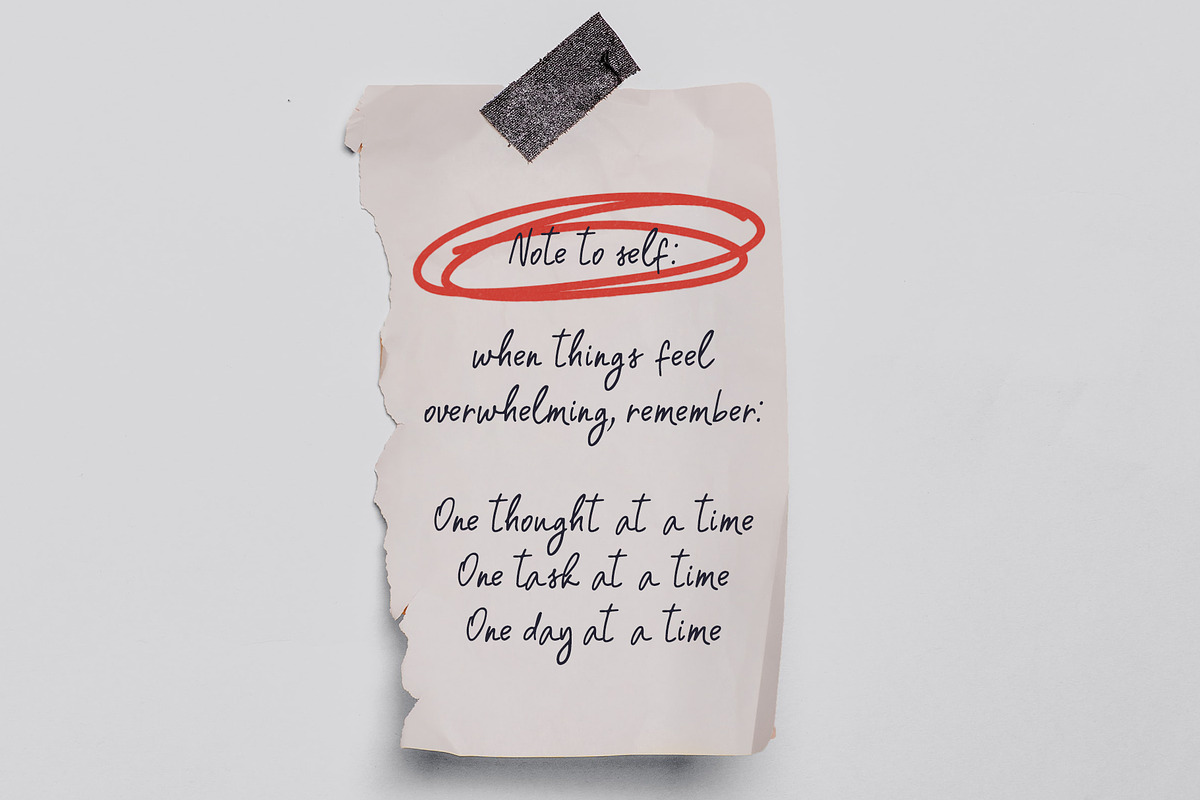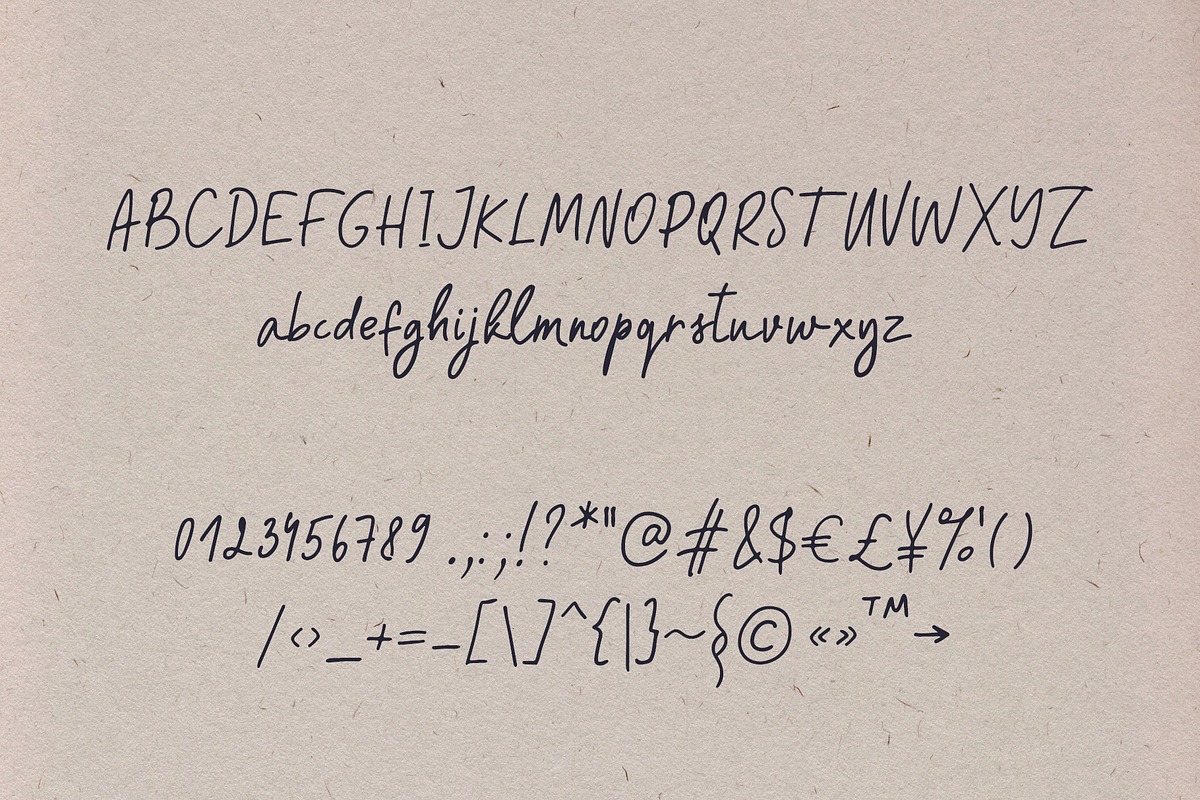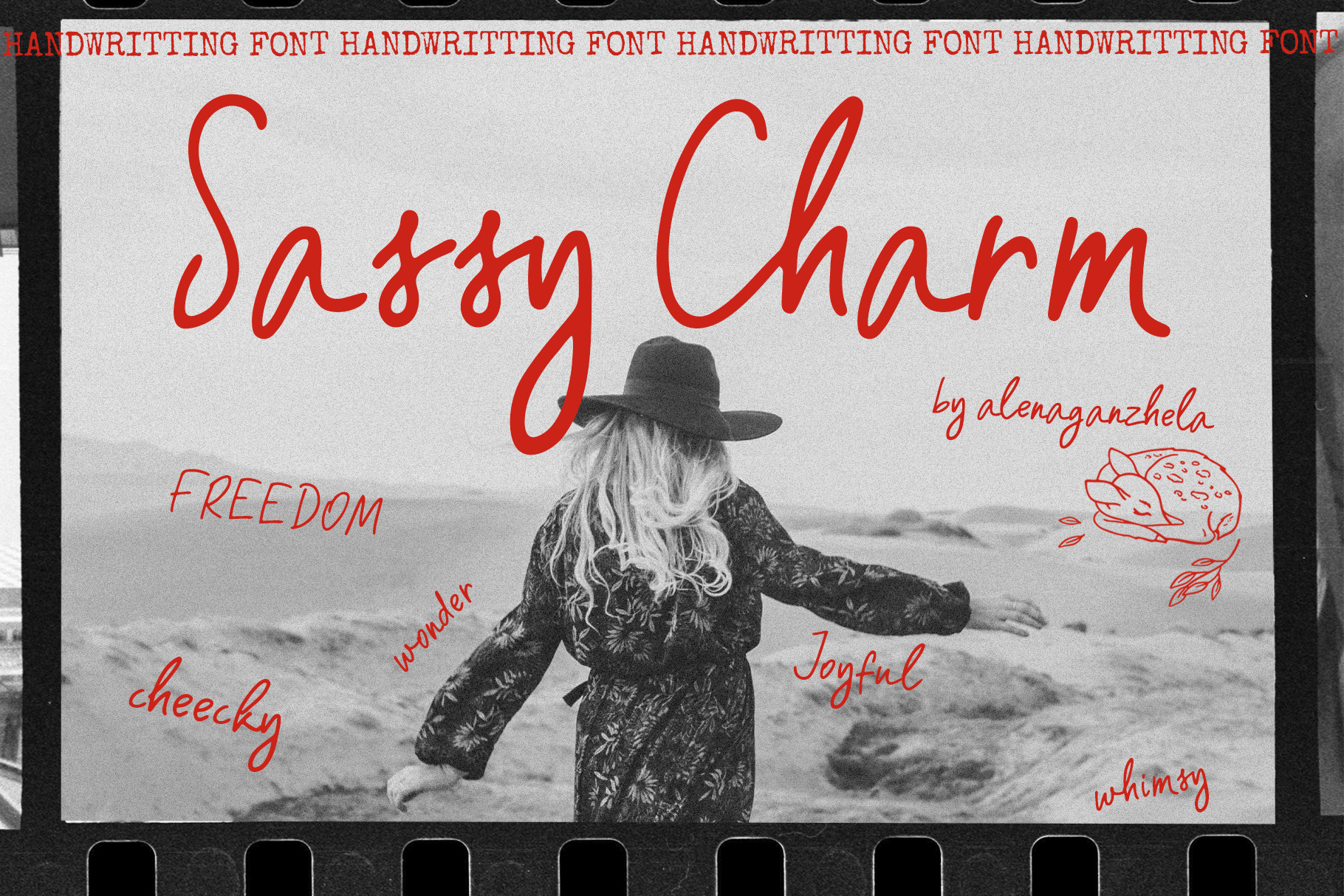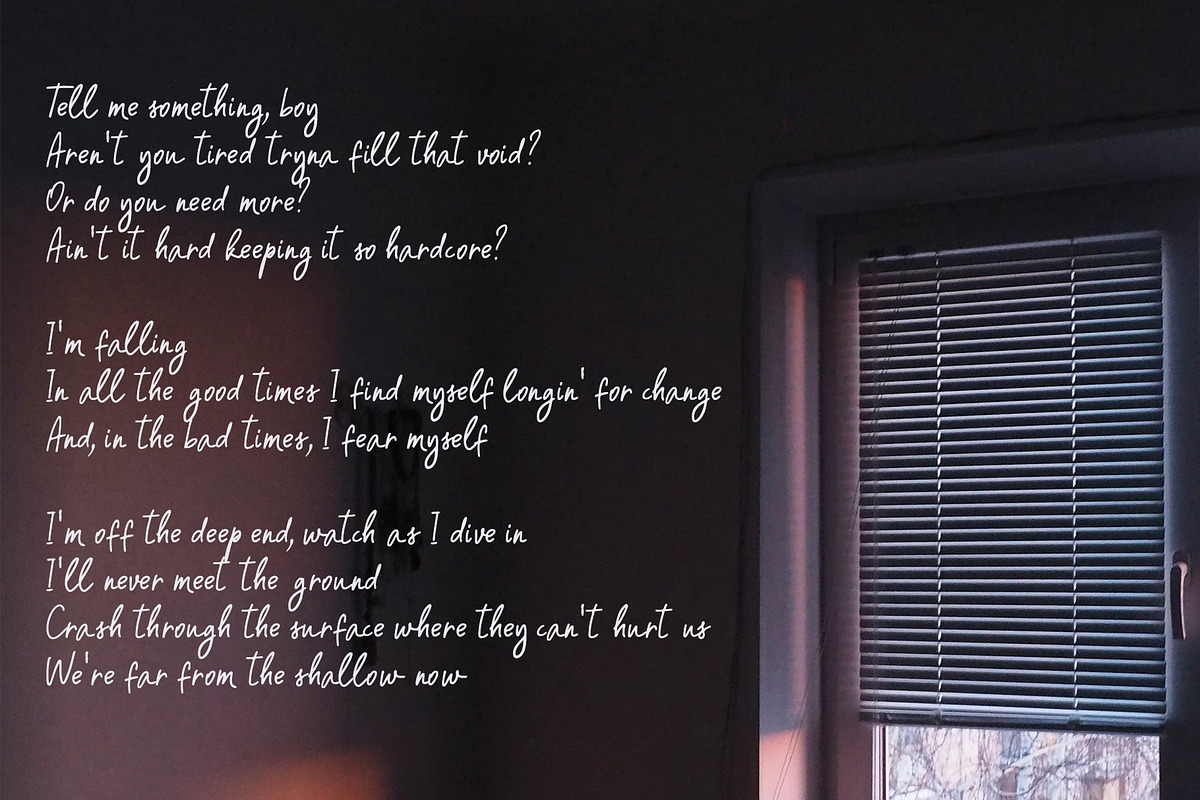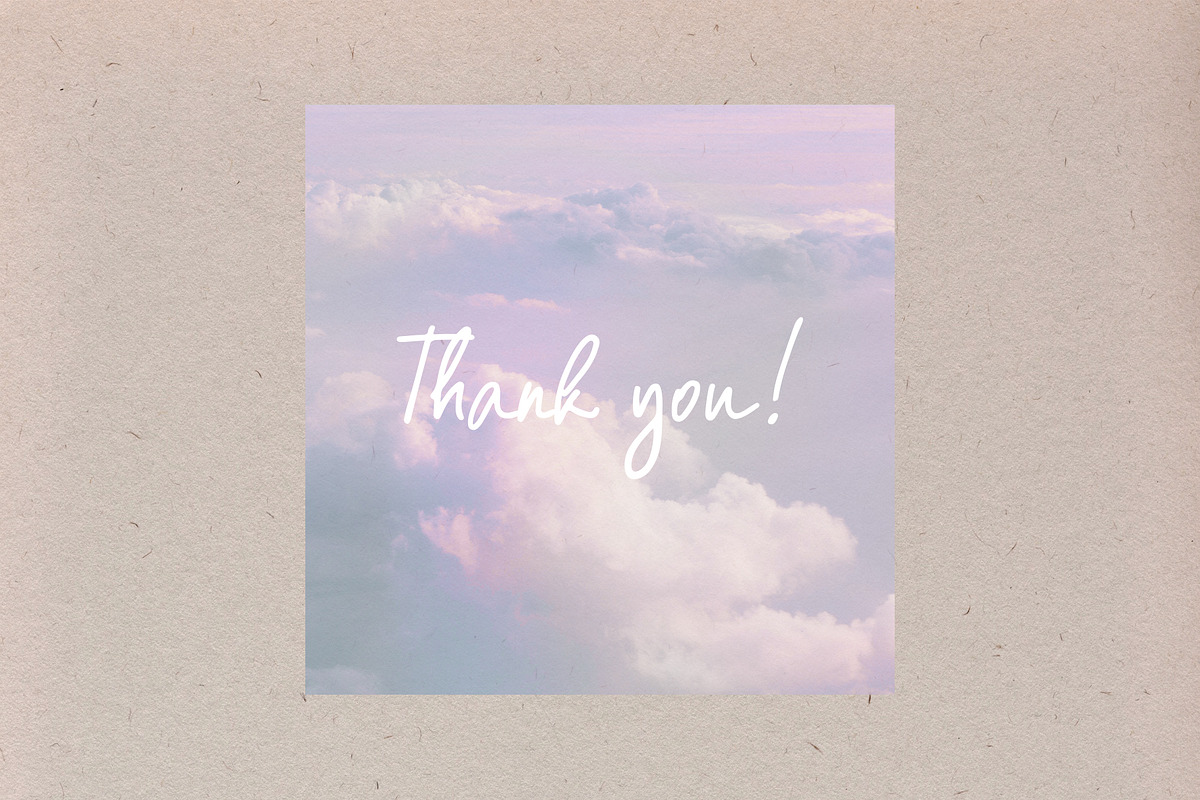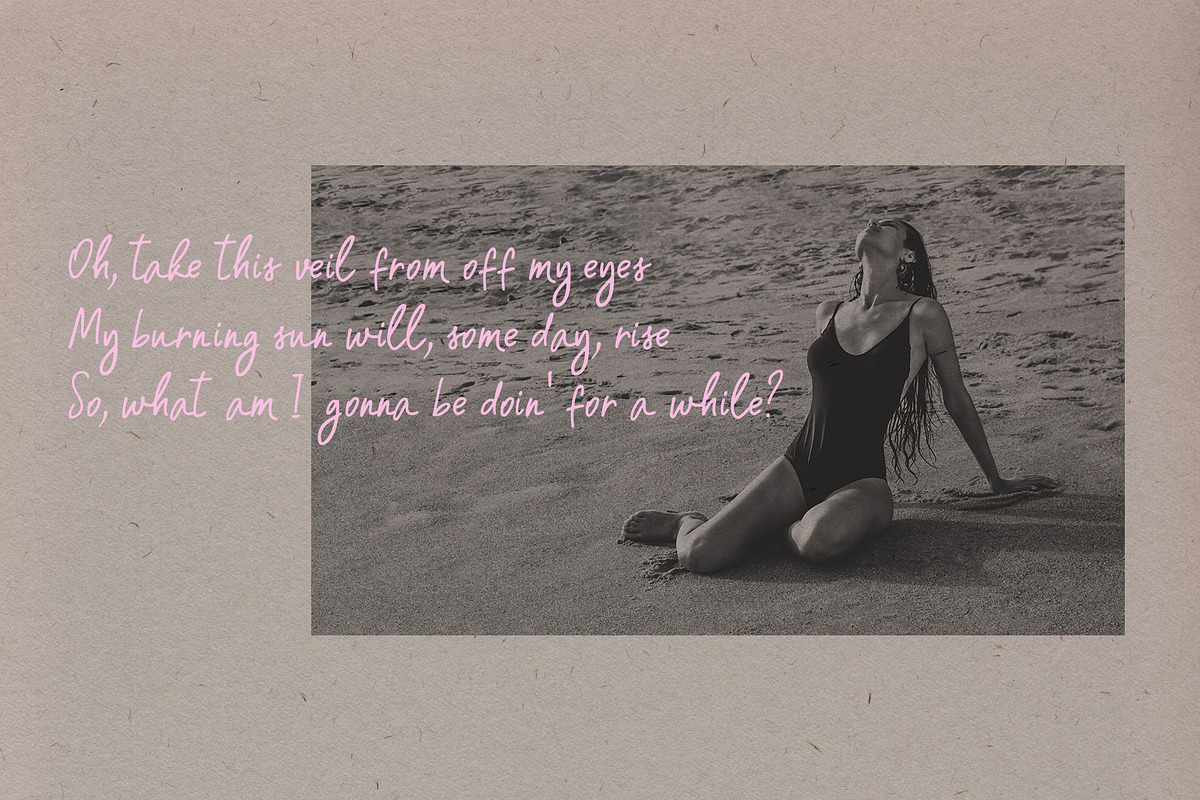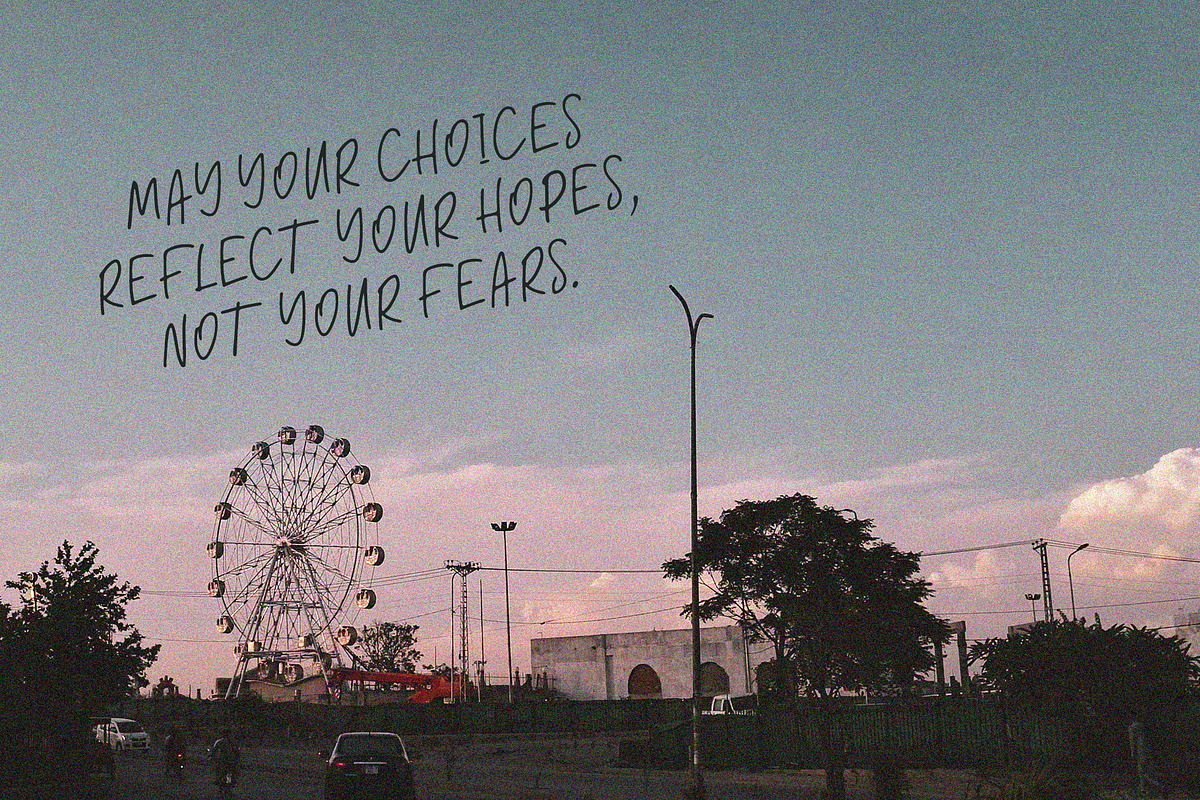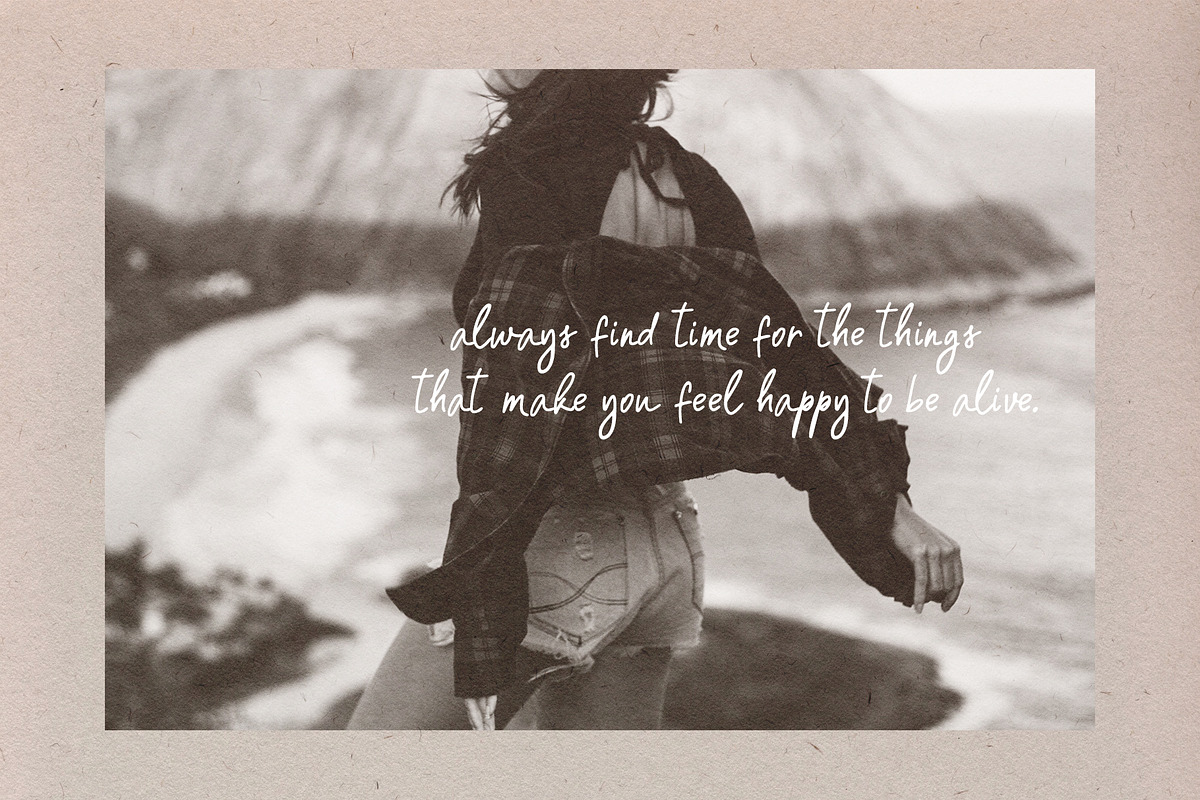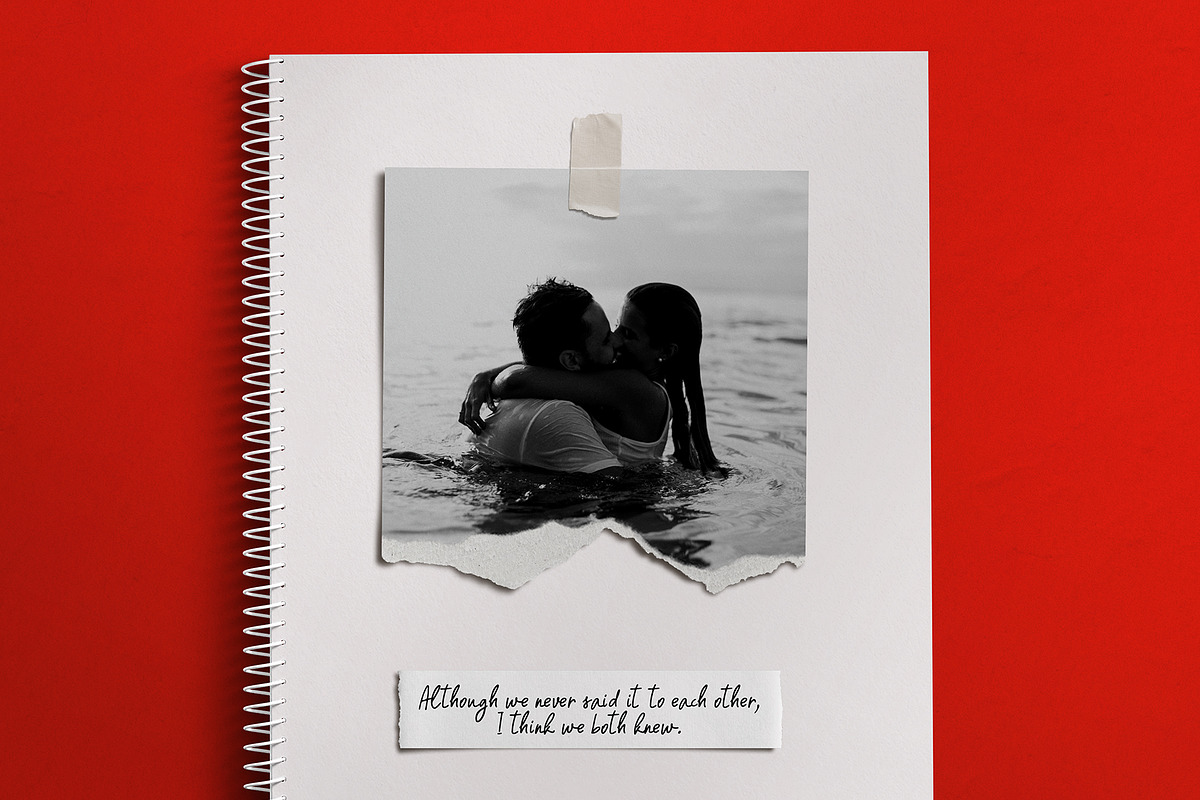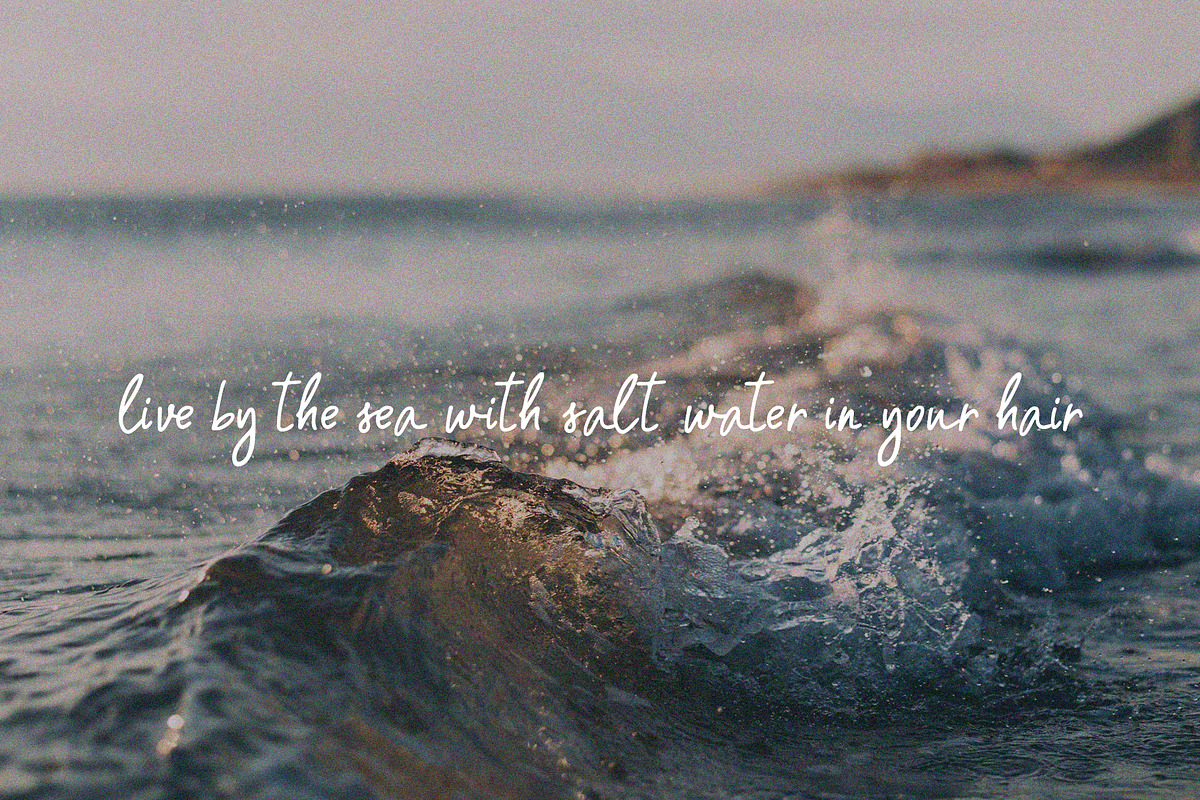
SASSY CHARM - handwritting font
I'm excited to unveil my new Sassy Charm font. It is a lively handwritten font that combines playfulness with a hint of rebellion, reminiscent of travel notes. Its casual design brings a relaxed and simple aesthetic.